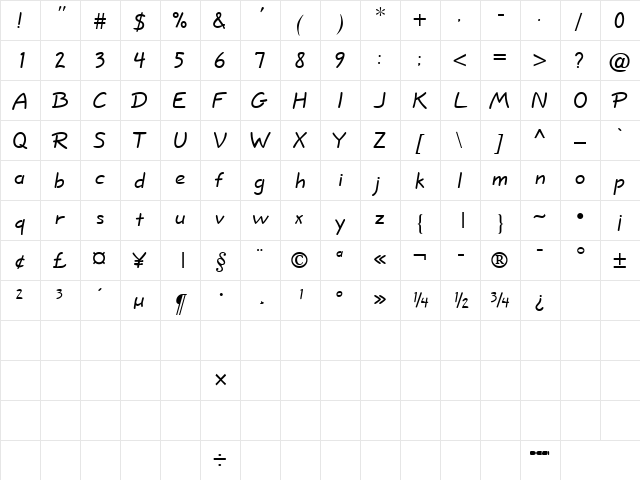
FFX Simple HW Regular Font Preview
FFX Simple HW Regular
FFX Simple HW Regular Font Details
Design Context for FFX Simple HW Typeface
FFX Simple HW is a composed and adaptable typeface that performs quietly and consistently across a wide range of design contexts.